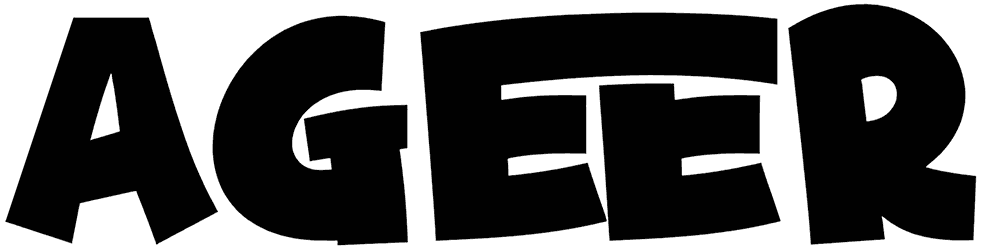
Ageer Font
Ageer is a versatile 90s cartoon font that has a wide variety of applications, ranging from book covers, illustrations, educational brochures, and even logos, so it would be your assistant in designing outstanding graphic content. Because its characters are a little bit oblique, this font instills a sense of disorder, jauntiness, grunge, and love, so ignoring the lack of numbers would be practical.